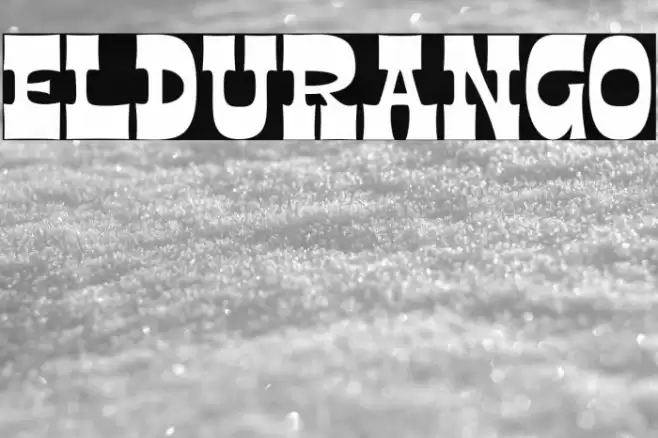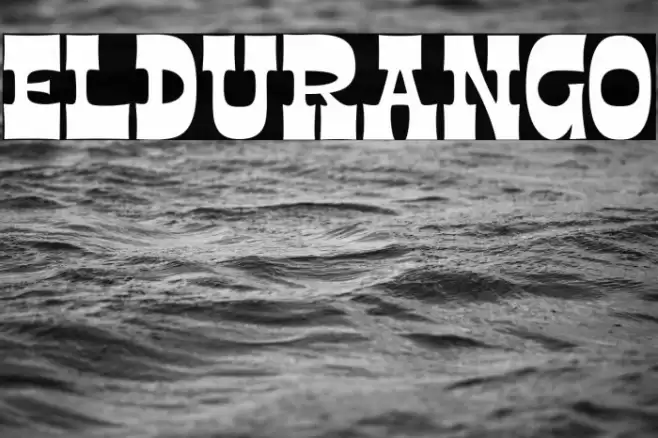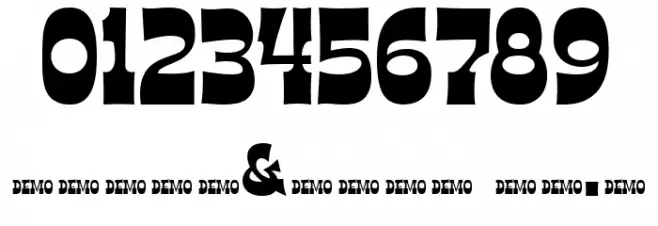
ElDurango Font
ElDurango Description
This font features a bold and dynamic style with a strong presence. The characters are designed with thick strokes and a unique, slightly curved structure that gives them a distinctive look. The uppercase letters are particularly striking, with a robust and commanding appearance. The numbers and special characters maintain the same boldness, ensuring consistency throughout. This font is ideal for making a statement, with its high contrast and decorative elements that draw attention.
A bold, decorative font with thick strokes and unique curves from Regular fonts.